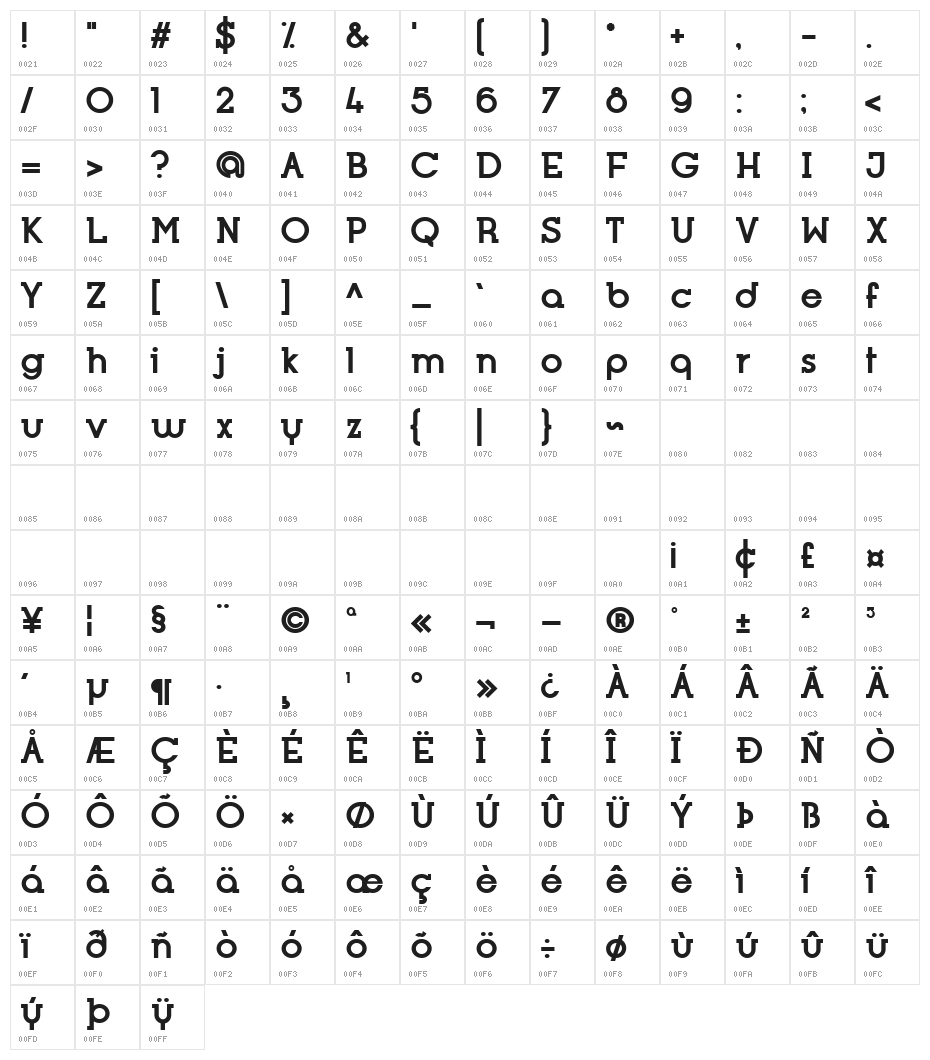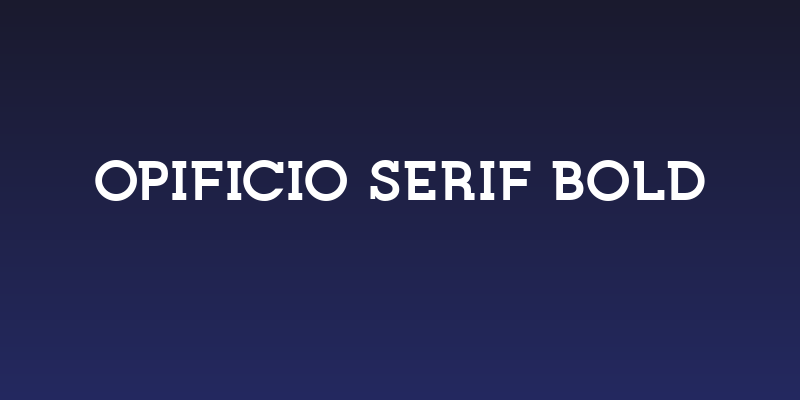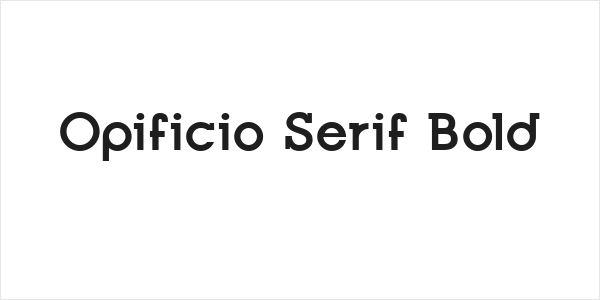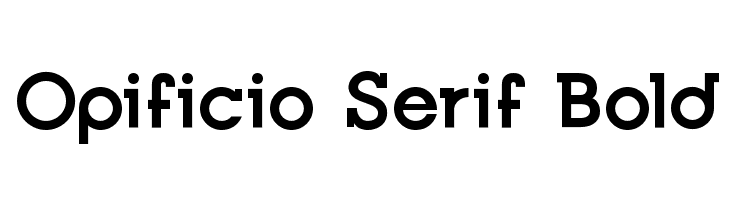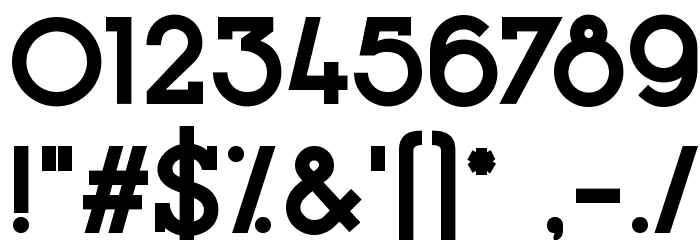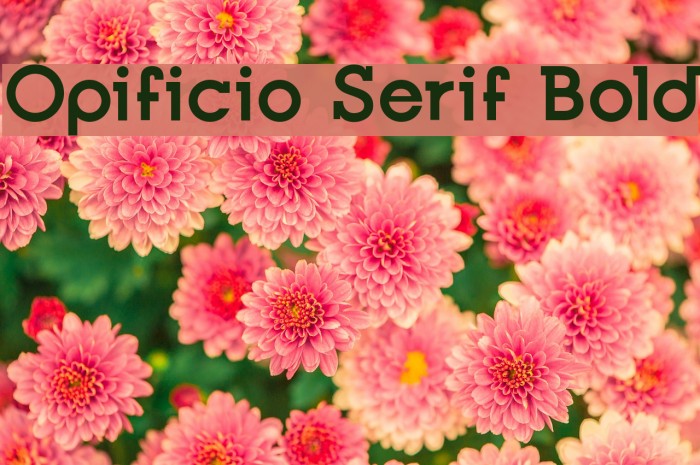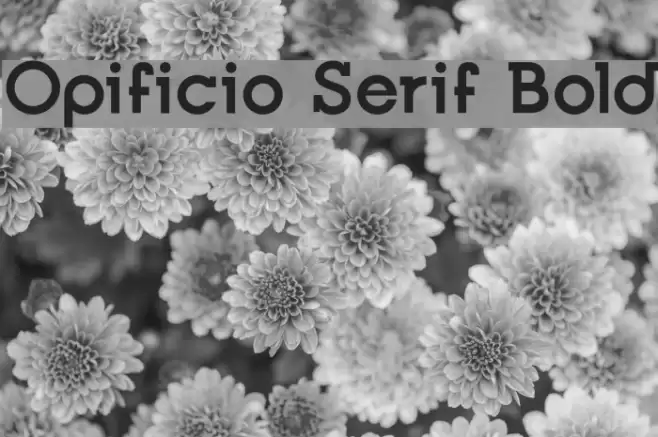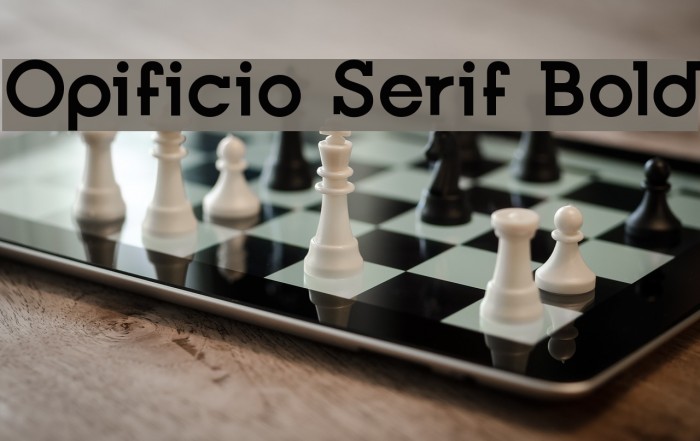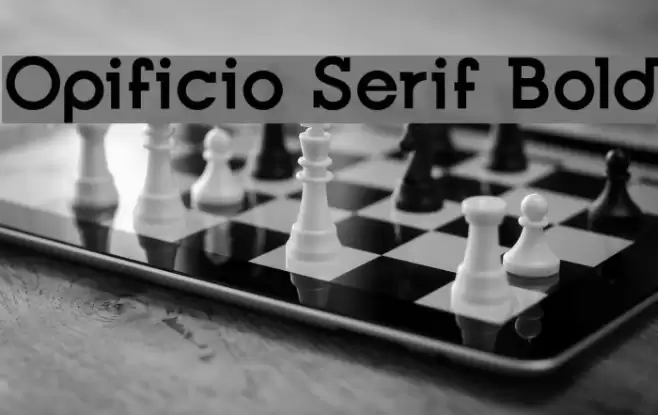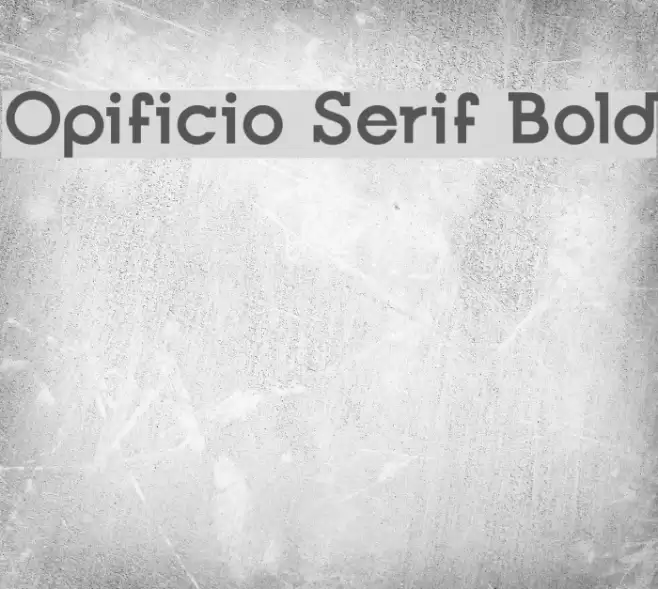
Opificio Serif Bold Font
Opificio Serif Bold Description
This font features a bold and robust serif design, characterized by its strong and pronounced strokes. The letters exhibit a modern twist on traditional serif styles, with a geometric influence that adds a contemporary feel. The uppercase letters are uniform and balanced, while the lowercase letters maintain a consistent weight and structure. The numerals are clear and legible, designed to complement the overall aesthetic. Special characters are thoughtfully crafted, ensuring versatility across various applications. The font's boldness makes it suitable for impactful headlines and titles, while its clean lines ensure readability.
| Use Case | Headlines, Logos, Branding |
| Proposed Projects | Ideal for branding, editorial design, posters, and advertising where a strong, modern serif is desired. |